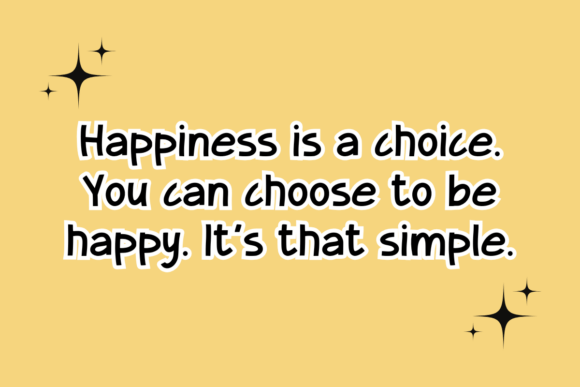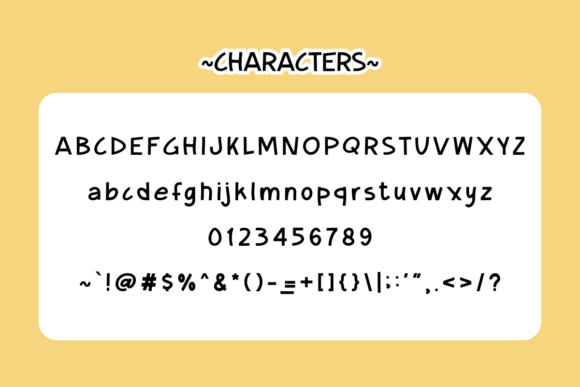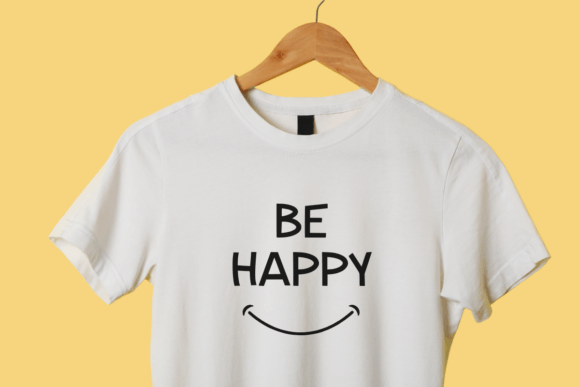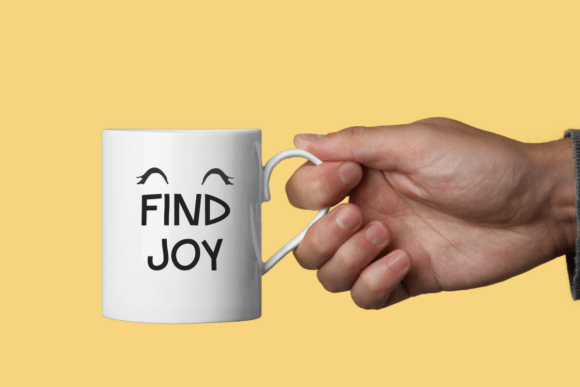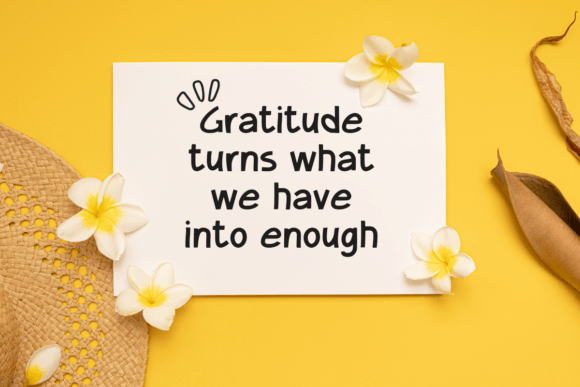
Crimson Elegance Font: Adding a Touch of Playfulness to Your Designs
In the world of design, fonts play a crucial role in conveying the tone and personality of a project. Whether you’re a designer, crafter, or DIY enthusiast, finding the right font can make all the difference. If you’re looking for a playful and elegant sans-serif font that’s perfect for a variety of projects, look no further than Crimson Elegance.
What is Crimson Elegance Font?
Crimson Elegance is a modern sans-serif font that’s designed to add a touch of fun and friendliness to your designs. Its playful and elegant style makes it perfect for a wide range of projects, from memos and journals to greeting cards and invitations. This versatile font is ideal for designers and crafters who want to create visually appealing and engaging content.
Uses of Crimson Elegance Font
Crimson Elegance is a versatile font that can be used for a variety of projects, including:
- Memos and Notes: Add a touch of personality to your memos and notes with Crimson Elegance. Its playful style makes it perfect for jotting down quick reminders or creating fun to-do lists.
- Journals and Planners: Create visually appealing journals and planners with Crimson Elegance. Its elegant style makes it perfect for daily planners, workbooks, and calendars.
- Greeting Cards and Invitations: Add a touch of whimsy to your greeting cards and invitations with Crimson Elegance. Its playful style makes it perfect for special occasions like birthdays, weddings, and holidays.
- Scrapbooks and Printable Stationery: Create beautiful scrapbooks and printable stationery with Crimson Elegance. Its elegant style makes it perfect for preserving memories and creating personalized gifts.
- Teacher Materials and KDP Interiors: Crimson Elegance is also perfect for teacher materials, KDP interiors, and printable educational resources. Its playful style makes it engaging and fun for students.
Why Choose Crimson Elegance Font?
So why choose Crimson Elegance font for your projects? Here are just a few reasons:
- Playful and Elegant Style: Crimson Elegance has a unique playful and elegant style that’s perfect for adding a touch of personality to your designs.
- Versatile: This font is versatile and can be used for a wide range of projects, from memos and journals to greeting cards and invitations.
- Easy to Read: Crimson Elegance is easy to read, making it perfect for creating content that’s both visually appealing and functional.
- Fun and Friendly: This font adds a fun and friendly touch to your designs, making it perfect for projects that require a personal and approachable tone.
Tips for Using Crimson Elegance Font
Here are a few tips for using Crimson Elegance font in your projects:
- Pair with Other Fonts: Crimson Elegance pairs well with other fonts, so don’t be afraid to experiment with different combinations.
- Use for Headings and Body Text: This font is perfect for both headings and body text, making it a great choice for creating visually appealing content.
- Experiment with Colors: Crimson Elegance looks great in a variety of colors, so experiment with different colors to find the one that works best for your project.
Crimson Elegance font is a playful and elegant sans-serif font that’s perfect for a wide range of projects. Its versatile style makes it ideal for designers and crafters who want to add a touch of fun and friendliness to their designs. Whether you’re creating memos, journals, greeting cards, or invitations, Crimson Elegance is a great choice. So why not give it a try and see how it can elevate your designs?